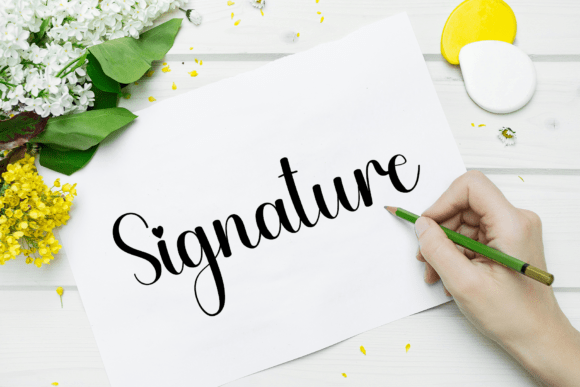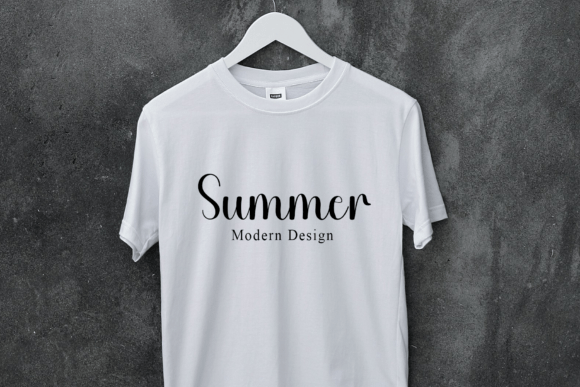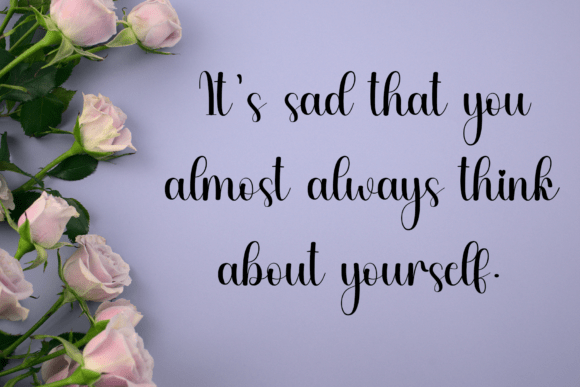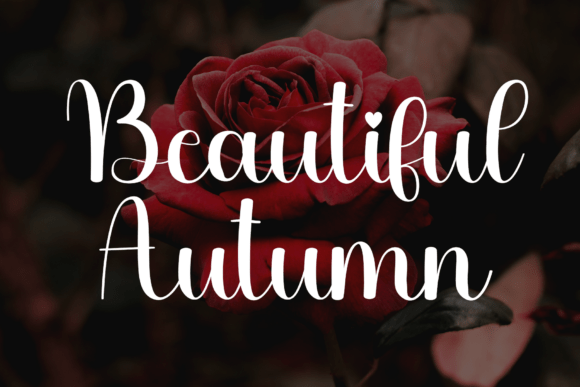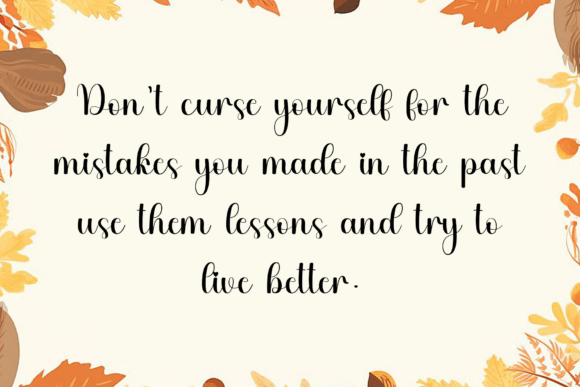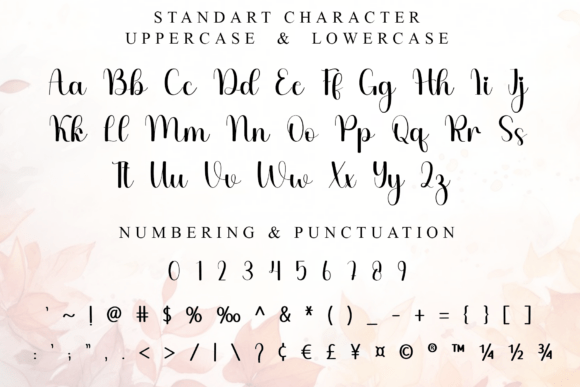
Introducing Hello Autumn Font: The Perfect Addition to Your Holiday Designs
As the holiday season approaches, designers and crafters are on the lookout for the perfect typography to add a touch of magic to their creations. Look no further than Hello Autumn Font, a festive and merry typeface that captures the spirit of the season. With its decorative elements and whimsical flair, this font is sure to bring a cheerful and nostalgic ambiance to your words.
Hello Autumn Font is designed to evoke the feeling of a festive holiday season. Its playful and decorative elements make it perfect for greeting cards, gift tags, and holiday-themed projects. The font’s whimsical flair adds a touch of enchantment to your designs, making them stand out from the crowd.
Whether you’re a designer or crafter, Hello Autumn Font is the perfect addition to your typography collection. Its versatility makes it suitable for a wide range of projects, from digital designs to handmade crafts. Use it to create:
- Greeting cards for friends and family
- Gift tags for presents
- Holiday-themed social media graphics
- Digital papers and planners
- Handmade crafts, such as scrapbooking and card making
Key Features of Hello Autumn Font
Hello Autumn Font comes with a range of features that make it perfect for holiday designs. Some of its key features include:
- Decorative elements and whimsical flair
- Perfect for greeting cards, gift tags, and holiday-themed projects
- Suitable for digital designs and handmade crafts
Tips for Using Hello Autumn Font
To get the most out of Hello Autumn Font, here are a few tips:
- Experiment with different sizes and colors to add visual interest
- Combine the font with other typography to create a unique look
- Use the font to create a cohesive brand identity for your holiday designs